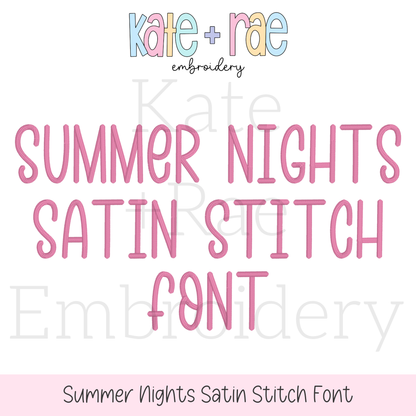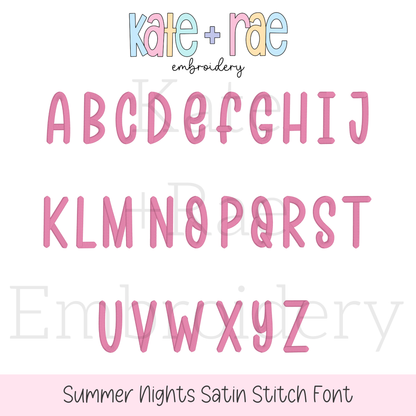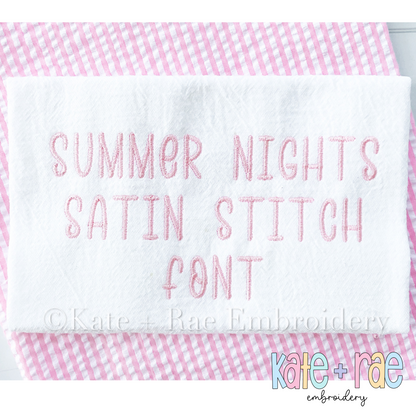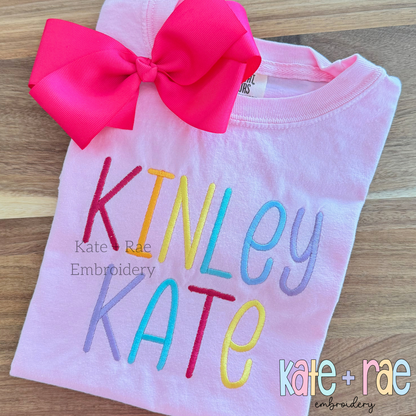
Summer Nights Satin Stitch Font
Meet Summer Nights, a sweet satin stitch embroidery font! Personalize names, monograms, sweatshirts, and kids' outfits.